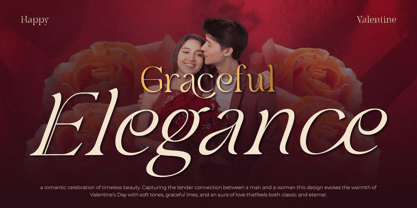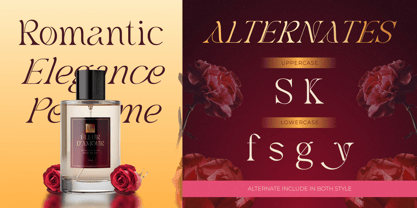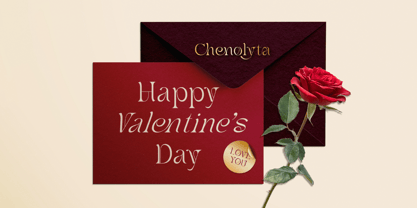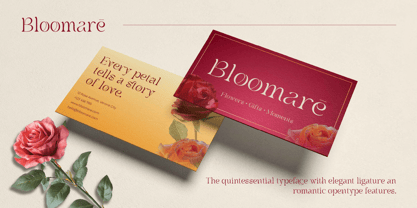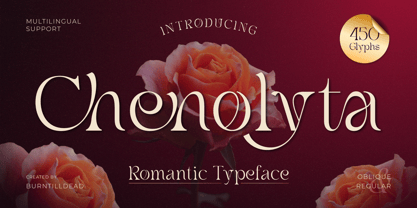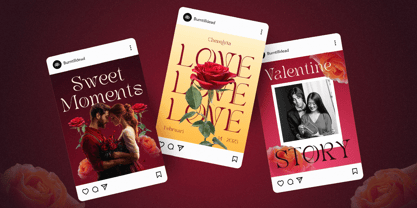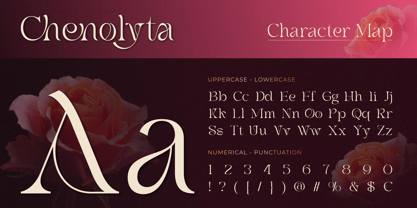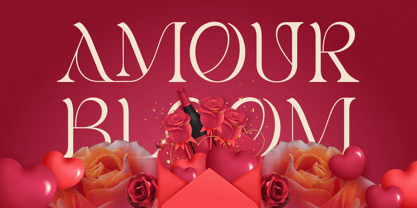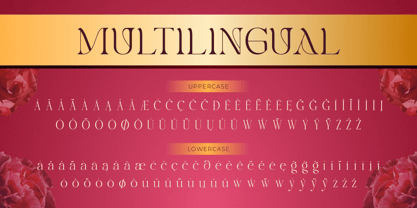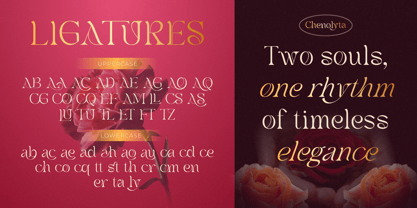
Chenolyta
by Burntilldead
The Chenolyta Font Family was designed by Eric Kurniawan and published by Burntilldead. Chenolyta contains 2 styles and family package options. More about this family
Fall in love with Chenolyta, a romantic and graceful typeface that speaks the language of love through every curve and flourish. Designed with an elegant balance of modern serif and artistic flow, Chenolyta brings a timeless charm perfect for Valentine’s designs, perfume branding, wedding invitations, and luxury packaging. With 450+ glyphs, oblique and regular styles, and stylish ligatures, this font offers endless ways to express passion and sophistication. Whether you’re crafting a poetic headline or a dreamy logo, Chenolyta makes every word bloom like a rose in full romance. Let your design whisper elegance, allure, and affection — the Chenolyta way.
Designers: Eric Kurniawan
Foundry: Burntilldead